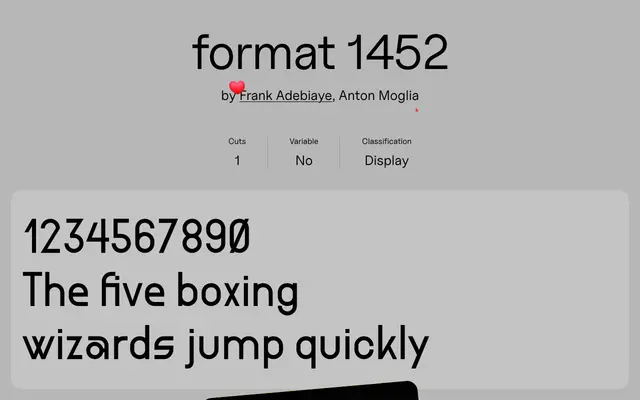
format 1452
A single-cut display face by Frank Adebiaye and Anton Moglia, available free under the SIL Open Font License.
Designed by Frank Adebiaye and Anton Moglia, this display typeface takes its name from the year of Gutenberg's printing press, suggesting a historical reference point in its design language. It comes in one cut with no variable axis and is released under the SIL Open Font License, permitting commercial use, modification and redistribution with conditions.
Classified as Display by the foundry; the name references 1452, the year of Gutenberg's press, suggesting blackletter or early printing influences used in a decorative display context.